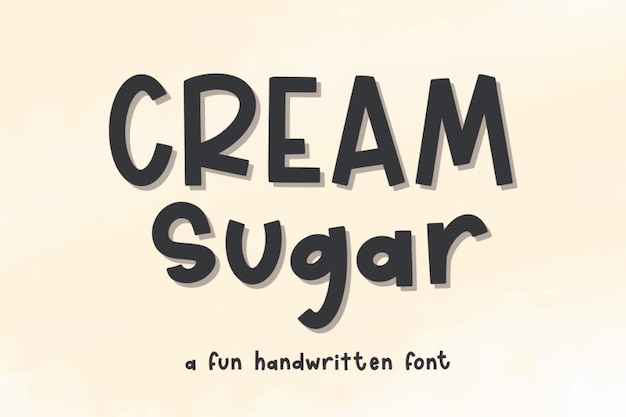
Cream Sugar
Cream Sugar Font
Cream Sugar is a fun handwritten font created for you to give your creations a new style! Make good use of this font to create unique posters, flyers, cards and much more!